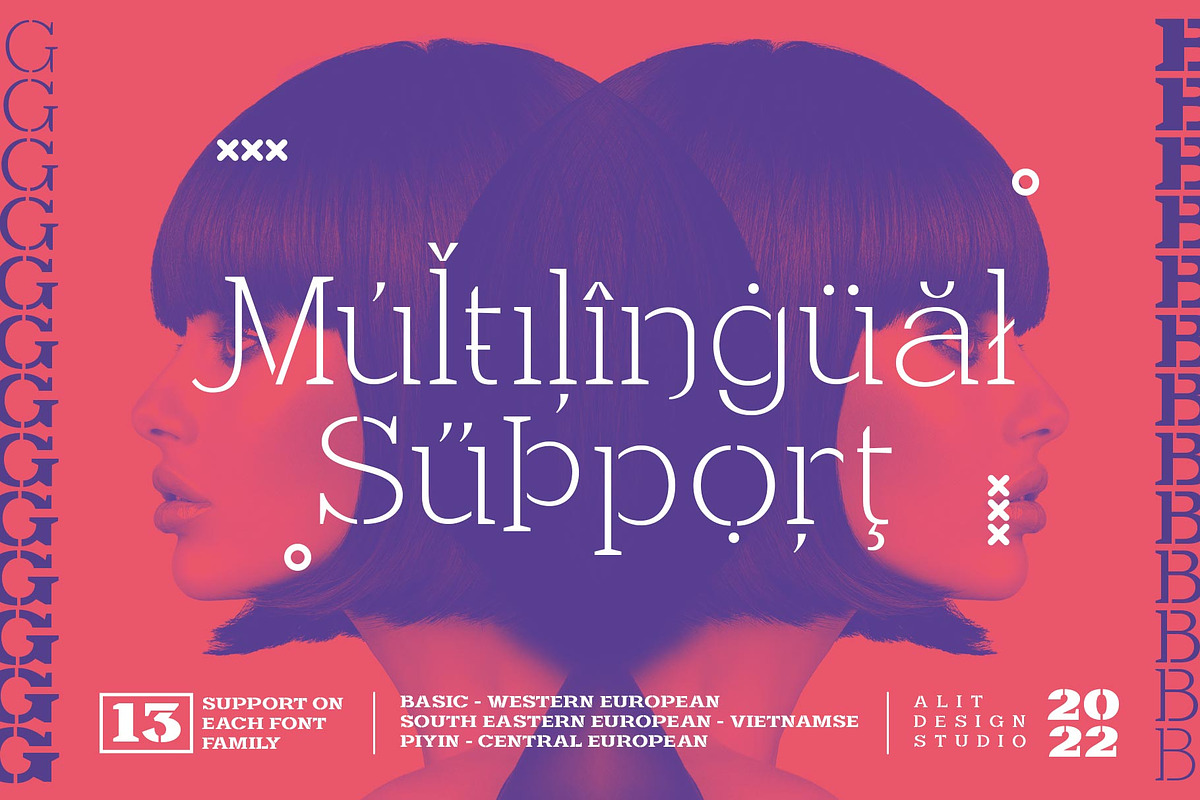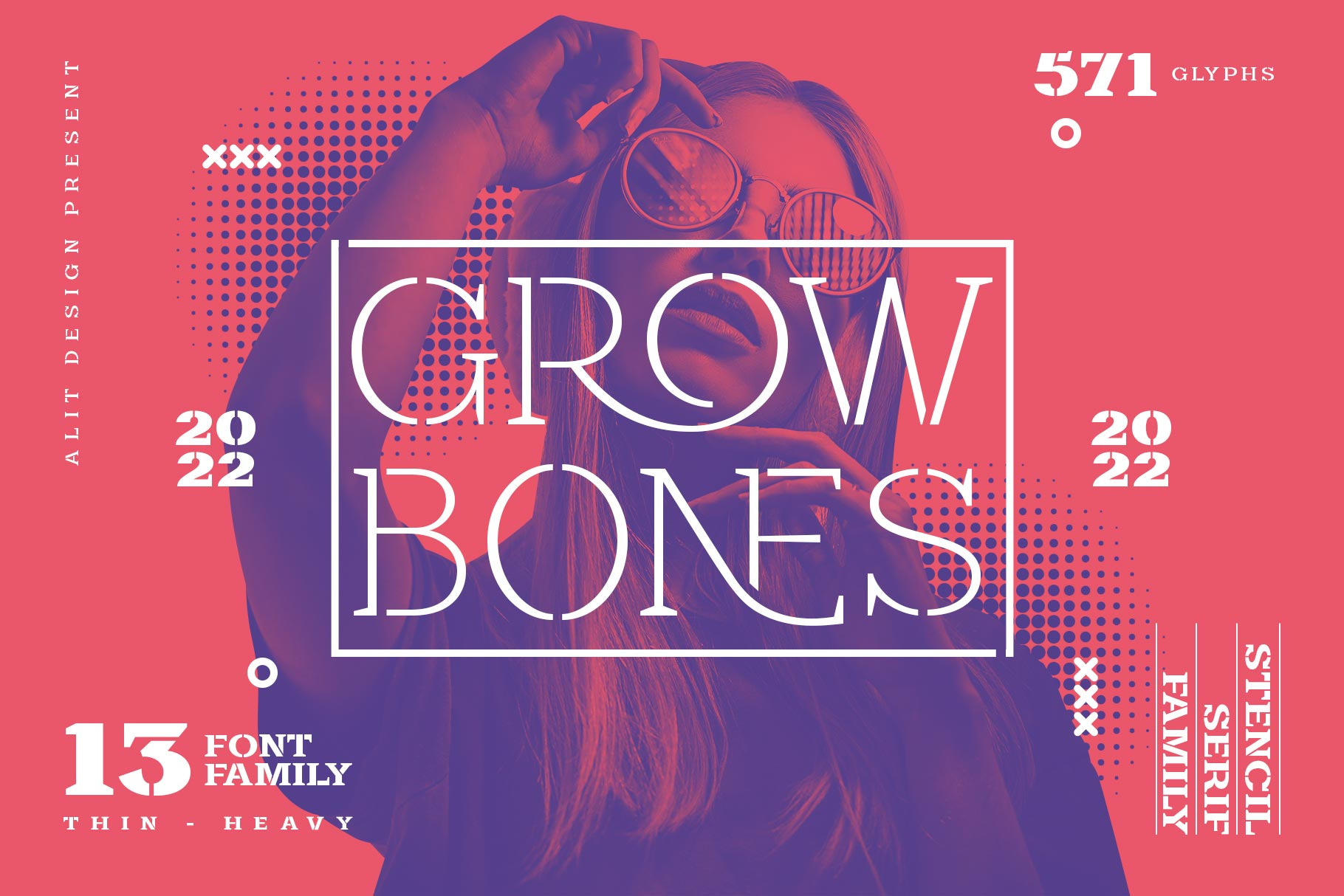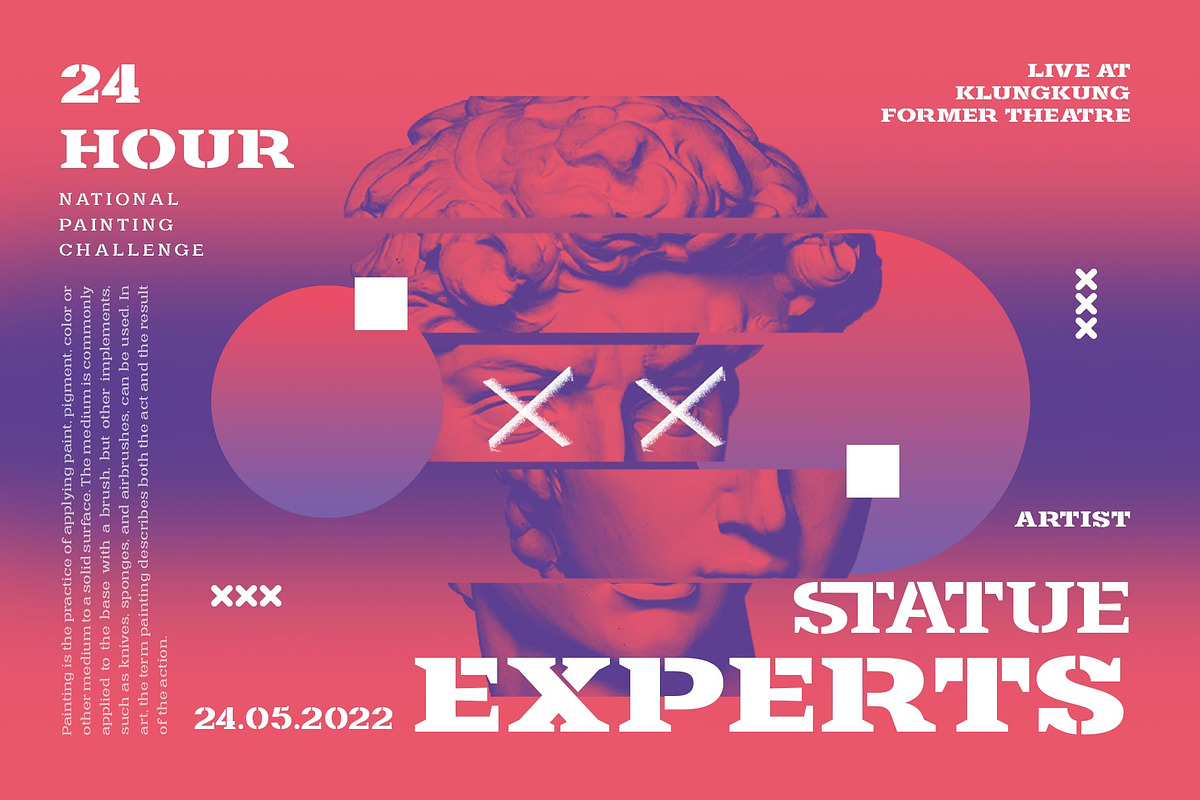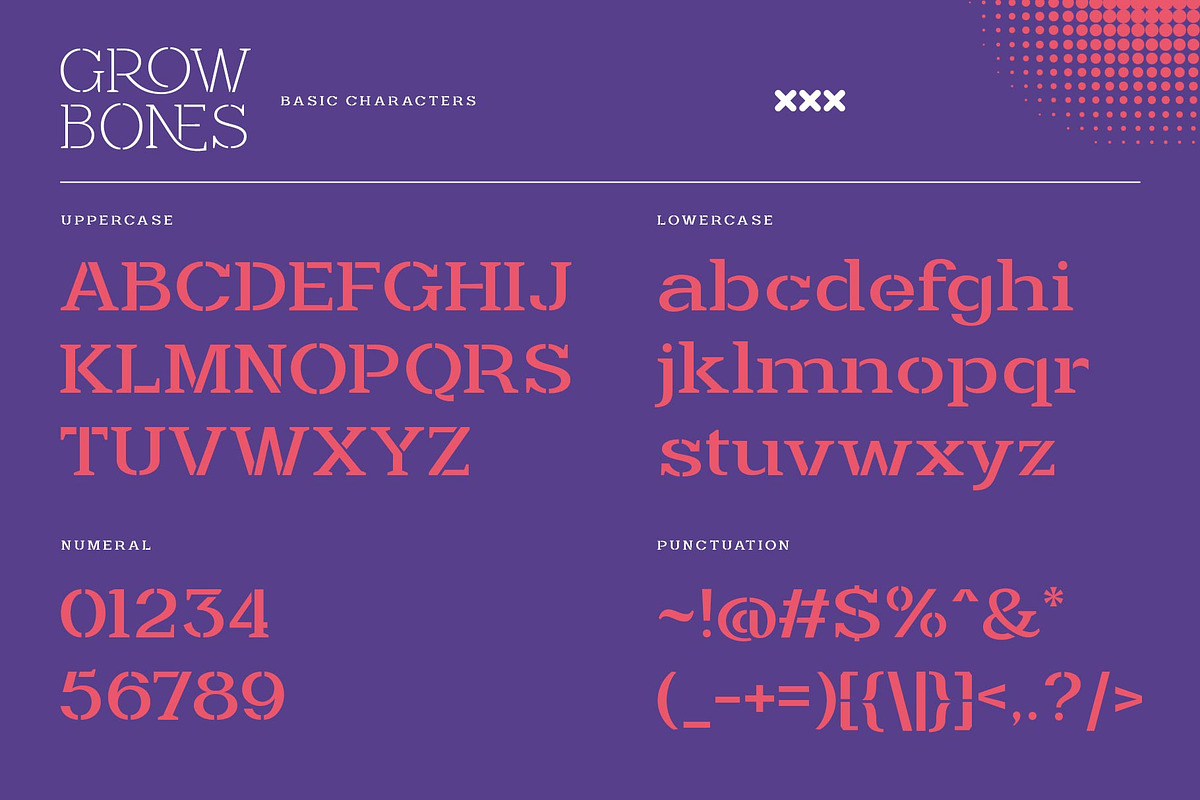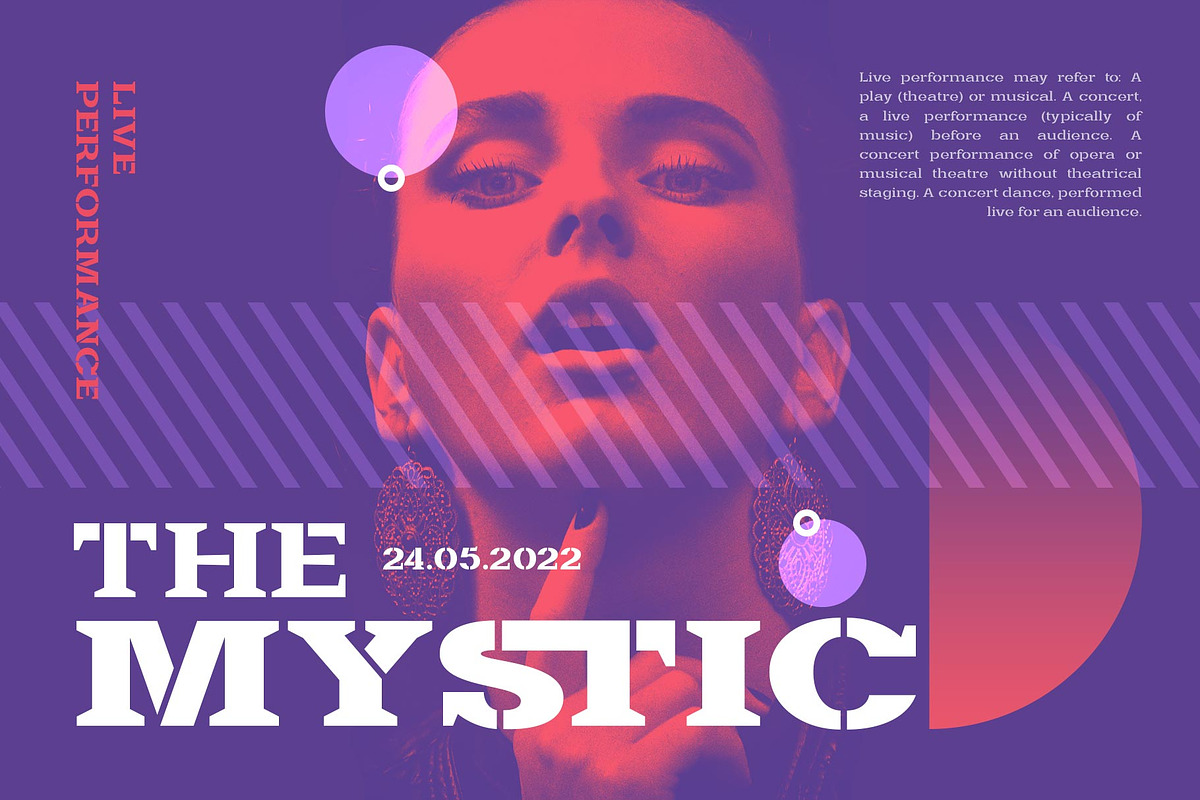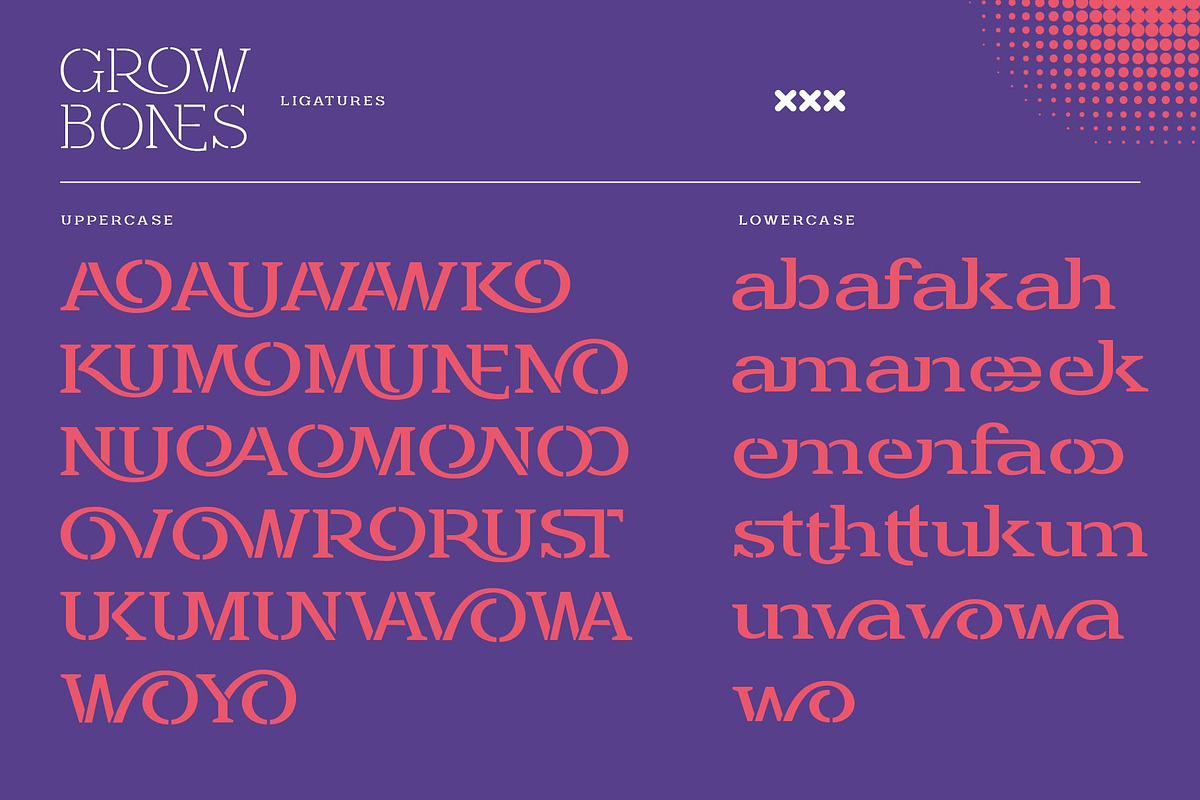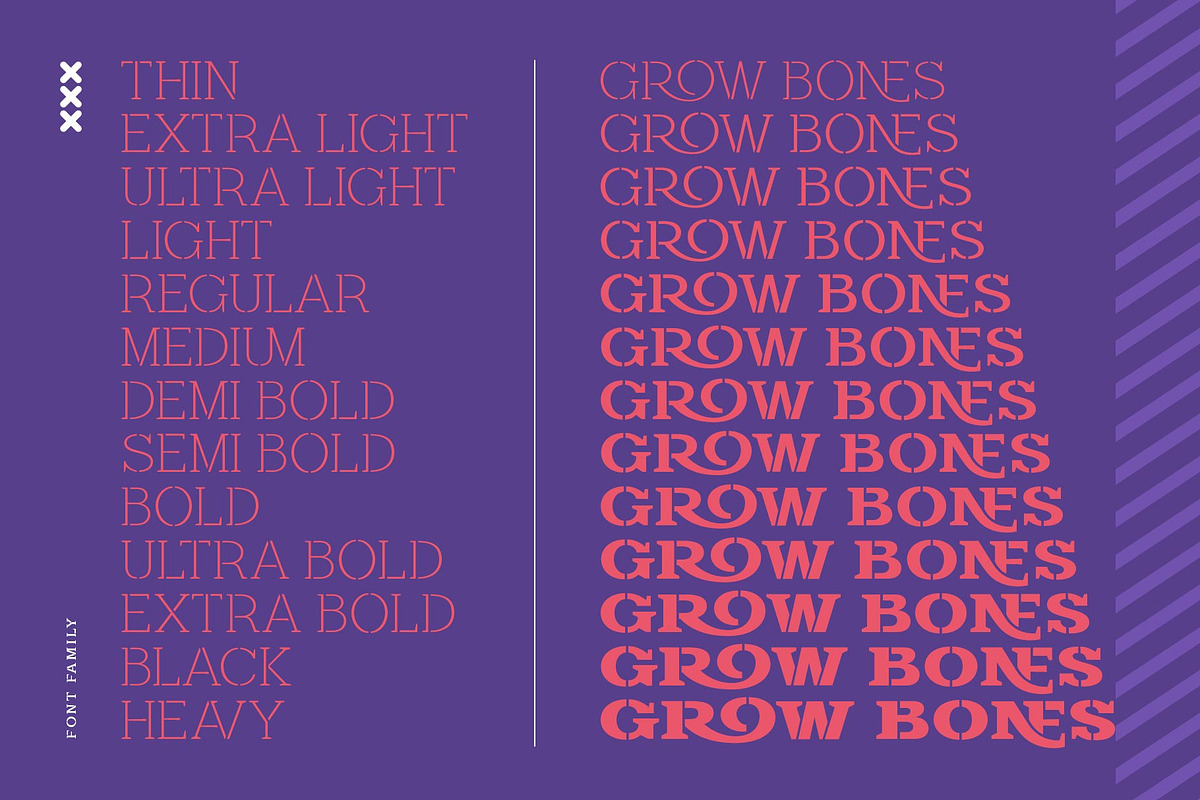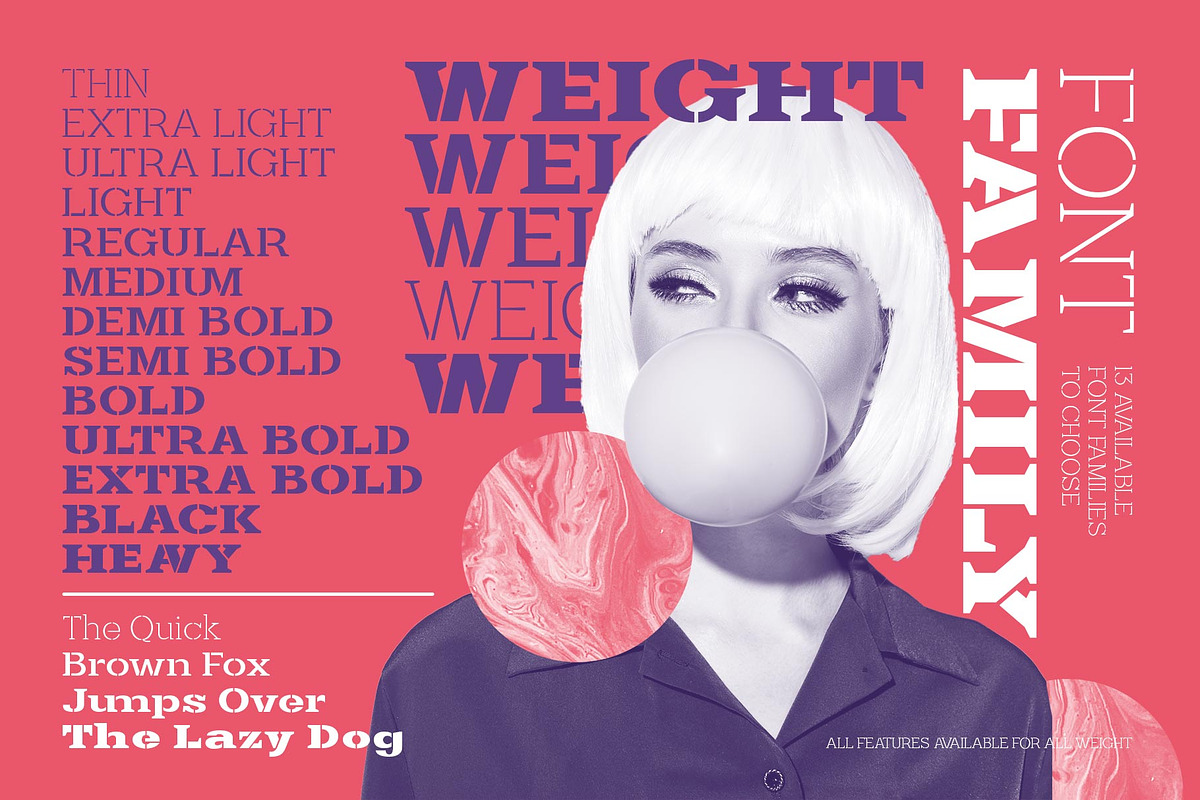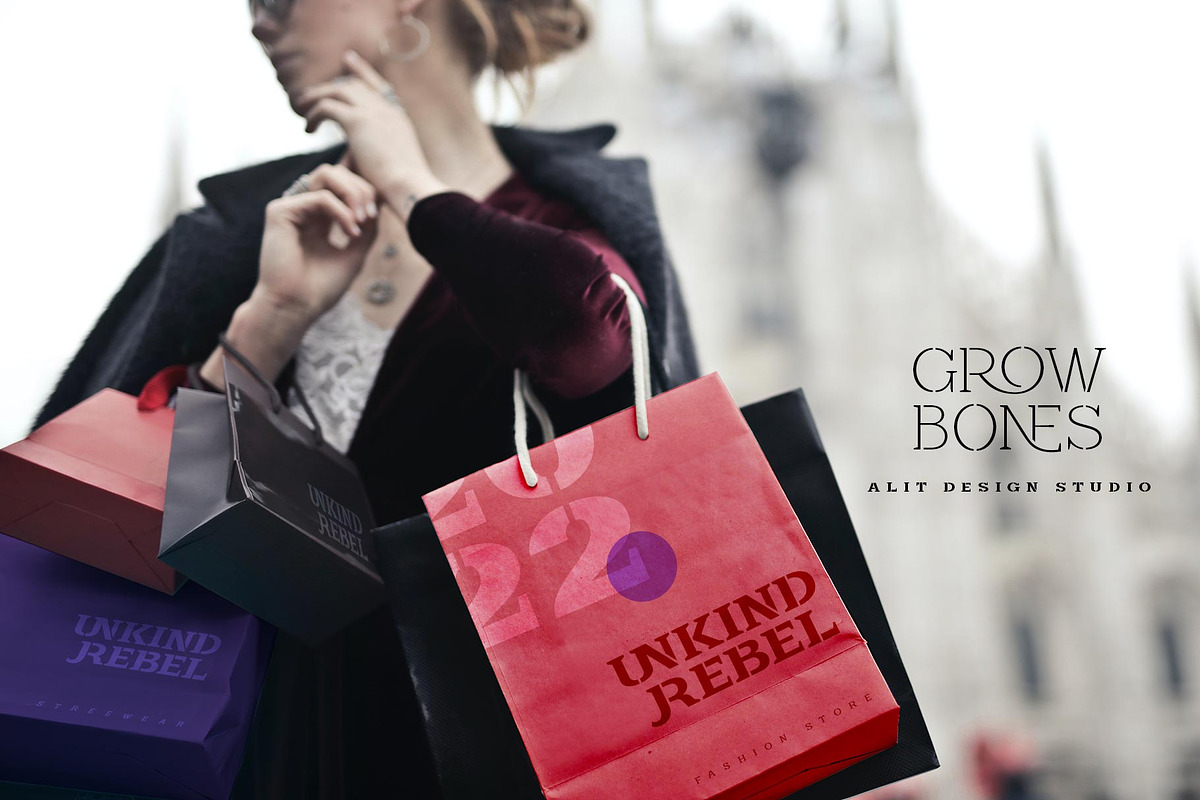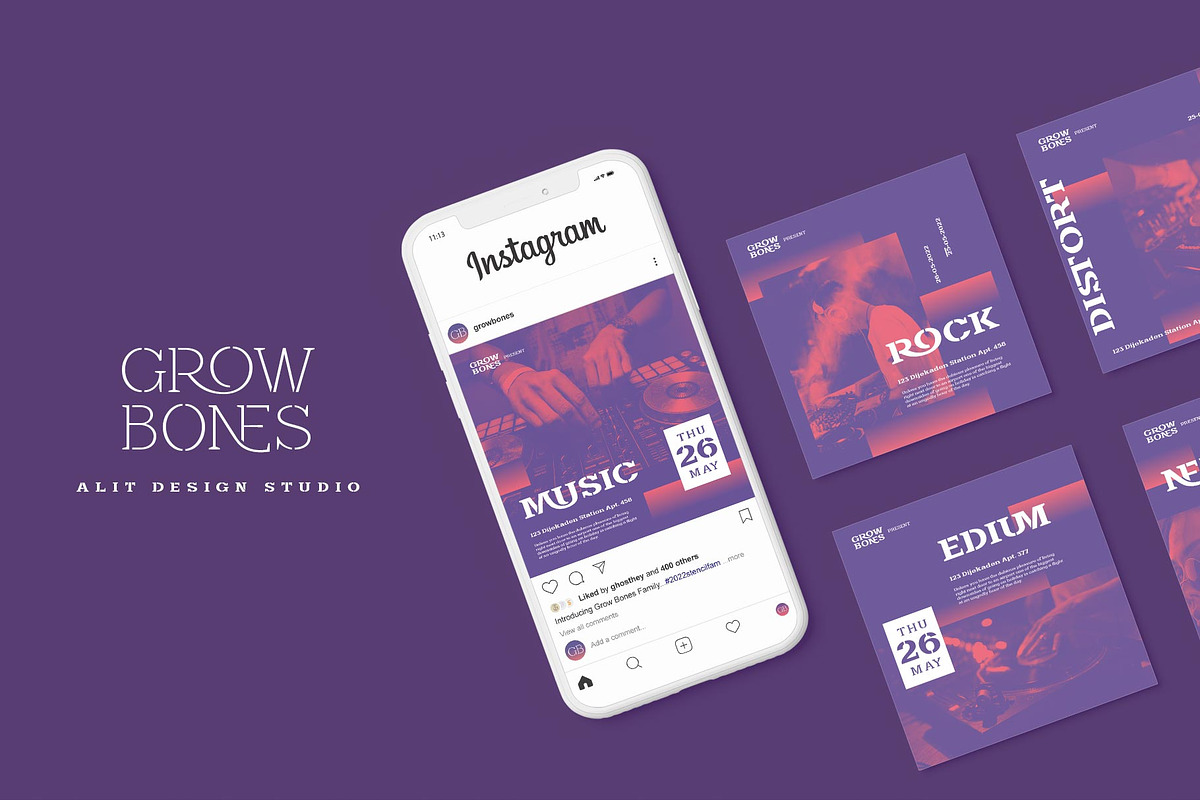
Grow Bones Family Stencil Font
Introducing Grow Bones Typeface
The Grow Bones font is designed with a serif font concept that has a sporty display stencil style. Irregular dynamic shapes but impressively regular and unique make the font "Grow Bones" different and steal attention.
Serif typefaces such as "Grow Bones" are very easy to apply to any design, especially those with an sporty, modern and strong, besides that this font is very easy to use both in design and non-design programs because everything changes and glyphs are supported by Unicode (PUA).
The "Grow Bones"contains 571 glyphs with many unique and interesting alternative options. Plus, there's a cool serif font family for header and description text from thin to heavy to thin. In the poster preview all the letters are in the Grow Bones typeface.
Language Support : Latin, Basic, Western European, Central European, South European,Vietnamese.